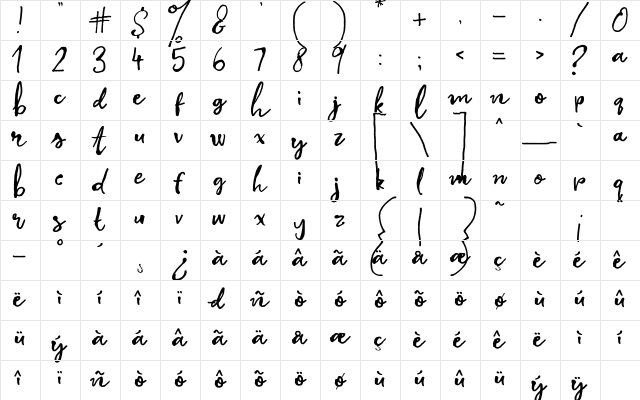
Travelling Abroad Lowercase Regular Free Font
Travelling Abroad Lowercase Regular
Travelling Abroad Lowercase Family
Design Context for Travelling Abroad Lowercase
Travelling Abroad Lowercase is a composed and adaptable typeface that performs quietly and consistently across a wide range of design contexts.